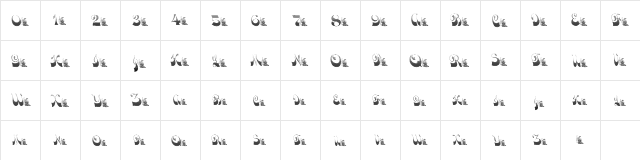
pf_wizard_teleporting_downwind Regular
| Designer | David E. Howerton |
Design Context for pf_wizard_teleporting_downwind Typeface
pf_wizard_teleporting_downwind is a composed and adaptable typeface that performs quietly and consistently across a wide range of design contexts.